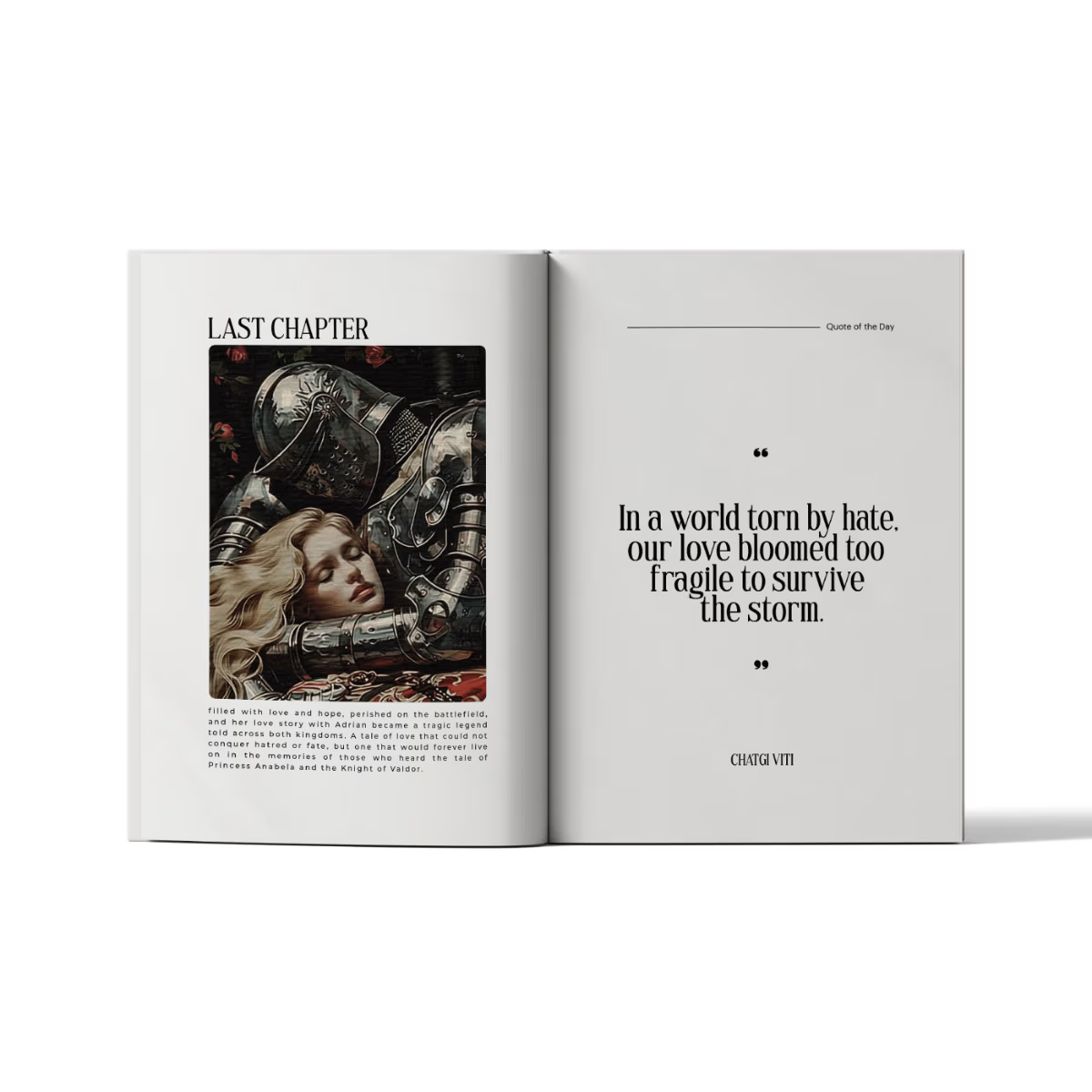
Flurries has tall, narrow letters with thin hairlines and crisp, pointed serifs. On the cover the name is set in white over a dark painting of armour and flowers. Inside a book mockup, a quote in the italic about love blooming in a storm shows the softer side.
The specimen lists two styles, Regular and Italic, plus alternates, ligatures and multilingual support. A full page names the supported languages, from Afrikaans to Zulu. The free download on this page is one OTF file.
Best uses for Flurries
- Book covers and chapter titles
- Magazine headlines
- Fashion branding
- Event posters
- Wine and spirits labels
Flurries pairs well with a neutral sans. Inter suits body text. Cormorant Garamond works if you want a second, softer serif for long reading.
Flurries Serif Font